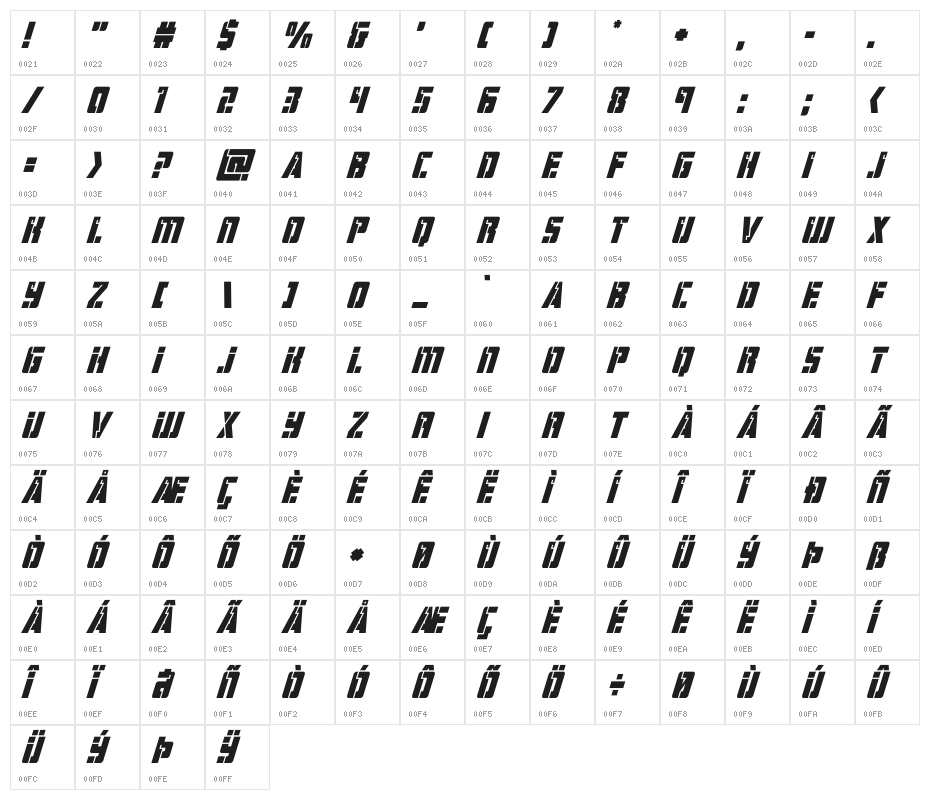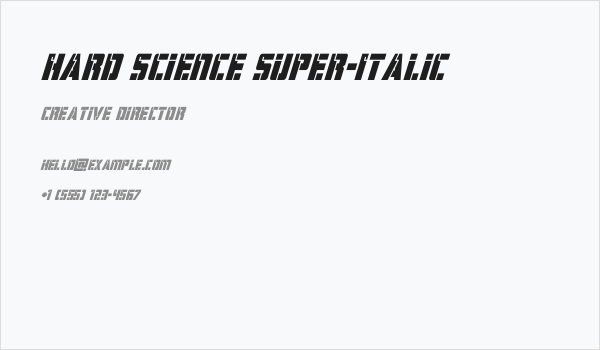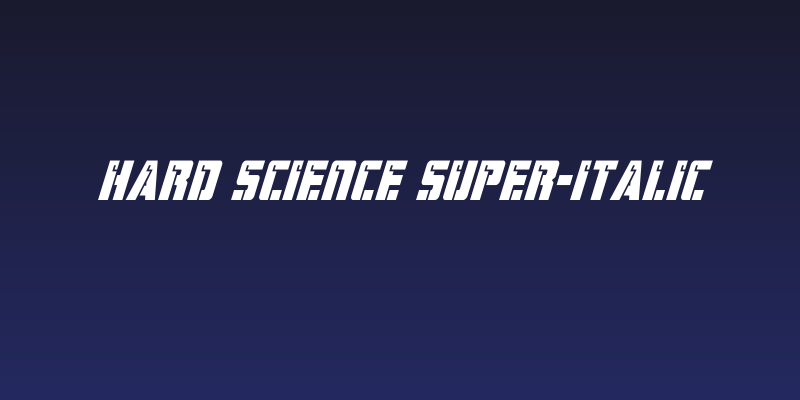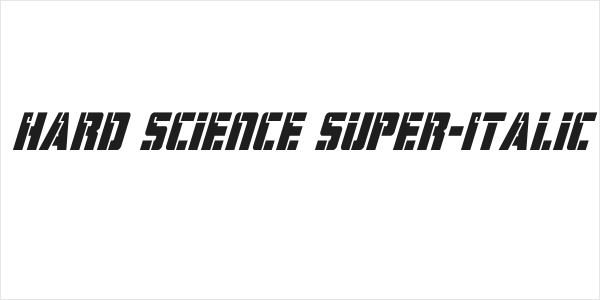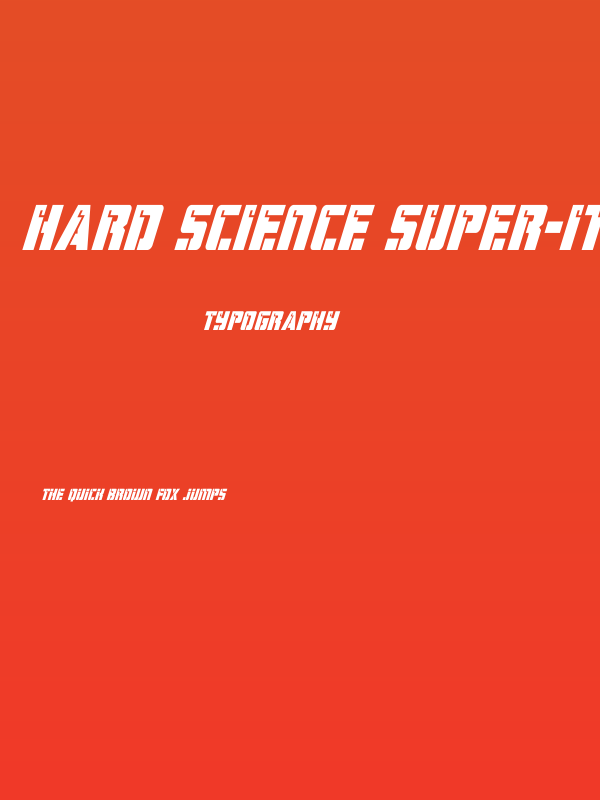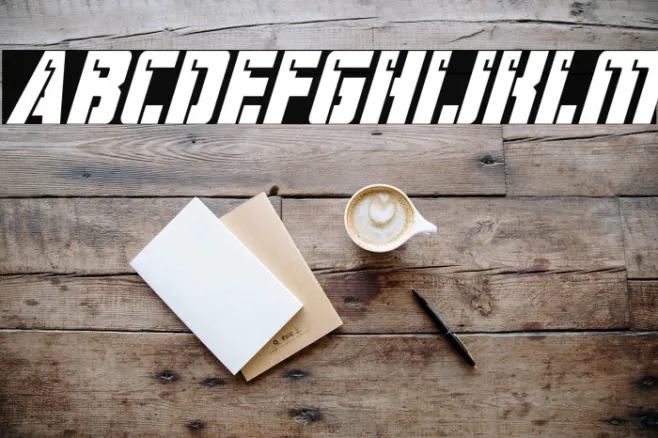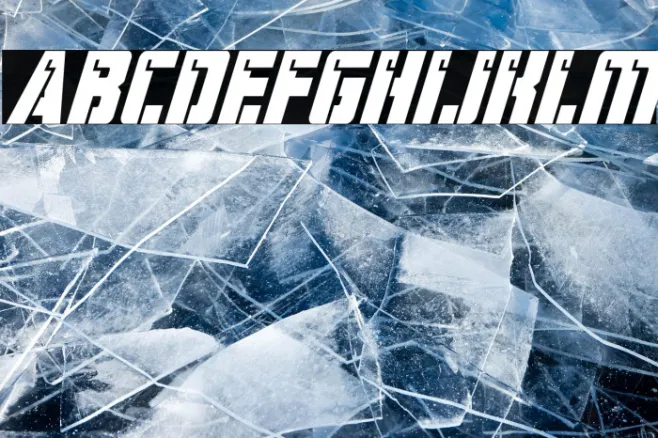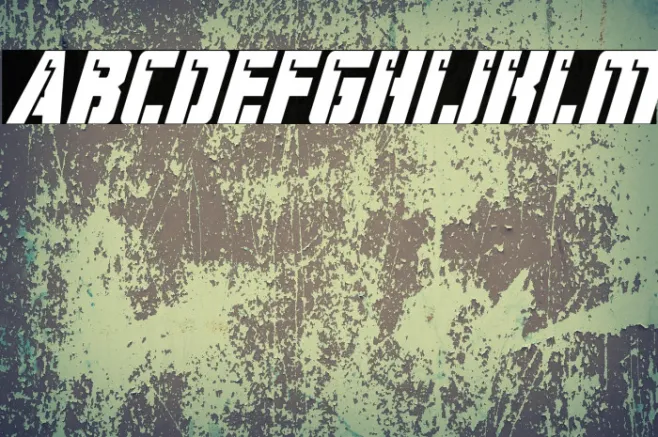
Hard Science Super-Italic Font
Hard Science Super-Italic Description
This font features a bold, italicized style with a futuristic and dynamic appearance. The characters are sharply angled and condensed, giving a sense of speed and motion. The uppercase and lowercase letters maintain a consistent slant, enhancing the italic effect. The numerals and special characters follow the same stylistic approach, ensuring uniformity across all glyphs. The font's design is reminiscent of sci-fi themes, making it suitable for projects that require a modern and edgy look.